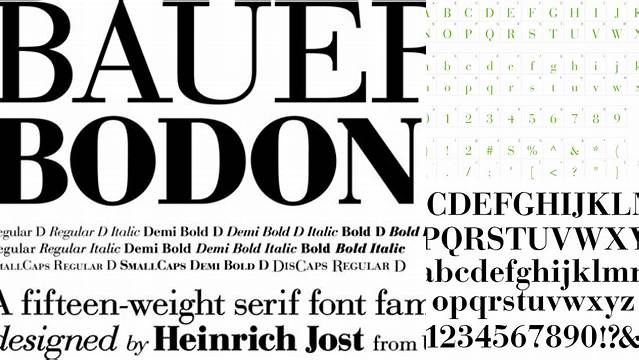
Bauer Bodoni Std-Roman Font Free Download: A Comprehensive Guide
Bauer Bodoni Std-Roman, a timeless typeface, holds a special place in the hearts of designers and typographers. Guys, if you're looking for a font that exudes elegance, sophistication, and a touch of historical charm, you've stumbled upon the right article! This classic font, known for its high contrast and graceful letterforms, is a staple for both print and digital design. And the best part? We'll explore the possibilities of a free download in this guide. We'll delve into the history, characteristics, usage, and, of course, how to get your hands on this iconic font. So, buckle up, grab a coffee, and let's dive into the world of Bauer Bodoni Std-Roman!
Bauer Bodoni's Historical Roots and Elegant Design
Bauer Bodoni, originally designed by Giambattista Bodoni, an Italian typographer and printer in the late 18th century, is a testament to the evolution of typography. This font embodies the Neoclassical style, a period that celebrated order, balance, and refined aesthetics. Understanding the historical context is crucial to appreciating the font's design. Bodoni's work was a reaction to the more ornate typefaces of the Baroque era, seeking a cleaner, more structured approach. He aimed for perfection, creating a typeface that was not just functional but also beautiful. His meticulous attention to detail, from the weight of the strokes to the serifs' sharpness, has made Bauer Bodoni a benchmark of typographic excellence. The font is celebrated for its high contrast between thick and thin strokes, its vertical stress, and its delicate serifs. These characteristics give it a distinctly elegant appearance, ideal for conveying a sense of sophistication and class. The design is clean, crisp, and commands attention, making it an excellent choice for display purposes. When you examine the letterforms, the elegance of each curve and line becomes immediately apparent. The font's beauty has led to its continued use in various design fields, from branding to editorial design, emphasizing its lasting influence and appeal. The historical significance is what makes it so unique. It's not just a font; it's a piece of design history that you can use today.
The Evolution of Bodoni: From Italy to the Digital World
The journey of Bodoni from the printing presses of Parma to the digital screens of today is fascinating. It's a story of adaptation and resilience. While Giambattista Bodoni's original designs were meticulously crafted for letterpress printing, the font has seamlessly transitioned into the digital age. This evolution highlights the versatility and enduring appeal of its design. During the digital transition, Bauer Bodoni Std-Roman was digitized and adapted for use on computers. This process ensured that the font’s essence remained intact while making it accessible in different formats. There were variations and adaptations to maintain its characteristic look while ensuring readability across various screens and devices. With the advent of new technologies, there were also improvements. This made the font more optimized for modern design applications. This evolution is a testament to the font's timelessness and its designers' vision. The fact that Bauer Bodoni has remained popular for centuries underlines its enduring relevance in design. And now, you have access to a digital version of this historic masterpiece. Isn't that cool?
Analyzing the Key Characteristics of Bauer Bodoni Std-Roman
Let's dig deeper into the key characteristics that set Bauer Bodoni Std-Roman apart. It's not just a beautiful font; it's a font with specific design features that contribute to its overall appeal. The most prominent characteristic is its high contrast. The strokes of the letters alternate dramatically between thick and thin lines. This creates a dynamic and visually striking effect. The fine hairlines and the bold stems give the font an elegant look. The vertical stress is another significant characteristic. Unlike some fonts that have a more slanted or oblique stress, Bodoni has a vertical stress, which is the way the curves in the letters are oriented. This vertical emphasis reinforces the formal and refined feeling of the font. The serifs of Bauer Bodoni are delicate, sharp, and precise. This is how they make the letterforms appear crisp and defined. They also add to the font’s sense of elegance and formality. The openness of the letterforms is yet another feature. The counters (the spaces inside the letters) are well-defined and spacious. This enhances the font's readability, especially in larger sizes. When you observe the details of each letter, you can see how each element contributes to the font’s overall elegance and effectiveness. The characteristics of Bauer Bodoni Std-Roman, when combined, result in a font that is instantly recognizable. It is suitable for conveying sophistication and precision. So, now that you know the design details, you can now appreciate it even more.
Ideal Uses for Bauer Bodoni Std-Roman: Making Your Designs Pop
Bauer Bodoni Std-Roman is not a one-size-fits-all font; it is a typeface that truly shines in particular contexts. Knowing its strengths can help you maximize its impact in your designs. The elegant and high-contrast nature of Bauer Bodoni makes it an excellent choice for headlines. Its sharp serifs and defined strokes allow it to grab readers' attention, making it perfect for headings in magazines, posters, and advertisements. The font commands attention, conveying a sense of luxury and sophistication. Bauer Bodoni works wonders for display purposes. This could include billboards, signage, or any design element where you want the text to be the main focus. The font’s elegant appearance helps to add a touch of class and formality. It is also a suitable choice for branding. Many luxury brands use Bodoni to create a high-end look and feel. Its sophisticated appearance can instantly elevate a brand’s image and communicate a sense of quality and exclusivity. Think about fashion brands, high-end cosmetics, and premium products. Bauer Bodoni is a staple in editorial design, especially for magazines and books. Its readability and elegance make it a great font for body text. It also works well for captions and other supporting text elements. It's all about creating a balanced and visually appealing layout. While it is great for large displays, you should use Bauer Bodoni with caution in body text, especially at smaller sizes. The high contrast can make it slightly harder to read for extended paragraphs. Be sure to test its readability and ensure it works well with the layout. The key to using Bauer Bodoni effectively is understanding its strengths and weaknesses. Use it where it shines. Use it in a context that complements its elegance and sophistication. You’ll be able to create stunning designs that leave a lasting impression.
Branding and Marketing: Leveraging the Elegance of Bauer Bodoni
Bauer Bodoni's impact in branding and marketing is significant. When used correctly, this font helps to communicate values such as luxury, quality, and sophistication. Many brands in the fashion, beauty, and luxury goods sectors use Bauer Bodoni in their logos, marketing materials, and packaging. This choice helps them establish their brand identity. The font immediately signals a high-end or premium product, attracting the attention of the target audience. In branding, Bauer Bodoni often appears in logos and corporate identities. The font's clean lines and elegant appearance make it a great choice for logos that aim to look timeless and stylish. It communicates professionalism and a commitment to quality. When used in marketing materials, from advertisements to brochures, Bauer Bodoni can set the tone. It creates a sense of trust and elegance. The font’s classic style fits well in modern marketing contexts. The versatility helps brands to effectively reach their audiences. When creating marketing campaigns, consider the target audience. Bauer Bodoni resonates with those who appreciate quality and sophistication. Marketing materials such as print ads, social media graphics, and websites must use this font. This consistency reinforces the brand's identity and strengthens its message. For marketing campaigns, there are a few tips you should know. Always ensure the font is used to match the brand. Maintain consistent use across all touchpoints to build brand recognition. Test the font's readability in different sizes and contexts. This ensures the message is clear and impactful. The use of Bauer Bodoni in branding and marketing is a strategic choice. It can greatly enhance a brand's image and create a lasting impression. The key is to use it thoughtfully and consistently.
Editorial Design: Crafting Beautiful Pages with Bauer Bodoni
Bauer Bodoni's application in editorial design is important, especially in creating visually stunning and readable publications. Magazines, books, and other printed materials make frequent use of this typeface. This results in elegant layouts that attract readers. The font's high contrast and sharp serifs make it ideal for headlines and display text. They are able to grab the reader's attention immediately. Bauer Bodoni provides a sense of sophistication and style. When designing a magazine or a book, the font is also suitable for body text. Its readability and elegance ensure that the text is not only readable but also visually appealing. You must be careful with the smaller sizes and the font's high contrast. They may affect its readability. Therefore, always consider the font size and spacing. To create effective editorial layouts, you need to choose appropriate headings. Use Bauer Bodoni for headings and subheadings to create a visual hierarchy and guide readers. The font's strong presence ensures these elements stand out. For body text, consider pairing Bauer Bodoni with another, more legible font. This allows you to maintain the elegance of the headings. The pairing helps to enhance the readability of the longer passages. Balance is the main thing to consider. Consider the use of white space, images, and other design elements to create balance. This makes the layout visually appealing and easy to navigate. Editorial designers benefit from using Bauer Bodoni to achieve several things. They want to create a sophisticated look, enhance readability, and communicate a sense of quality. So, when crafting editorial designs, the key is to appreciate the font's strengths and use it strategically to enhance the overall reading experience.